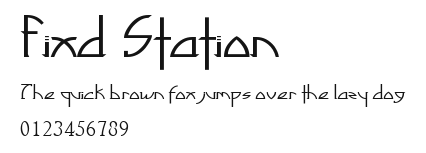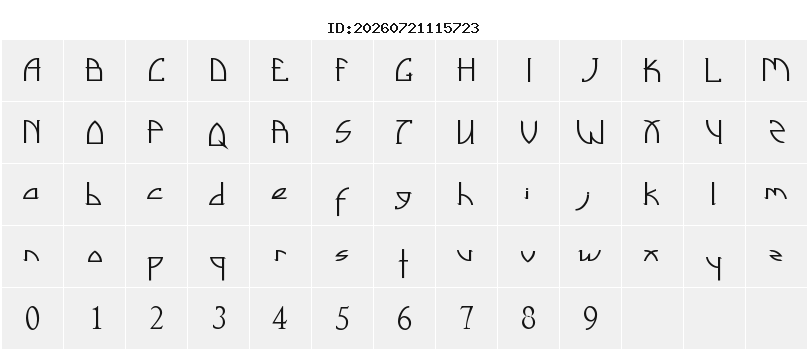
• Font Name: Fixd Station
• Designer: Fixd - Diesel
About Fixd Station.ttf
Fixd Station.ttf is a modern, elegant sans-serif font designed for ultimate readability and visual harmony. Perfect for branding, headlines, web design, and print materials.